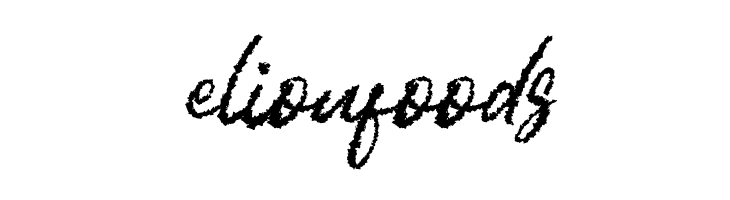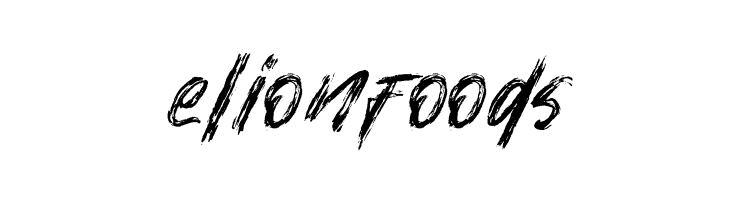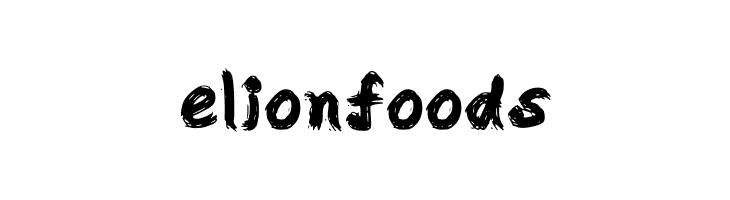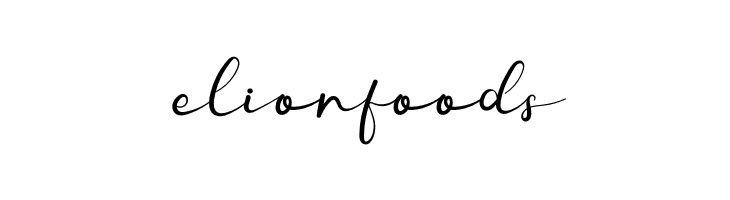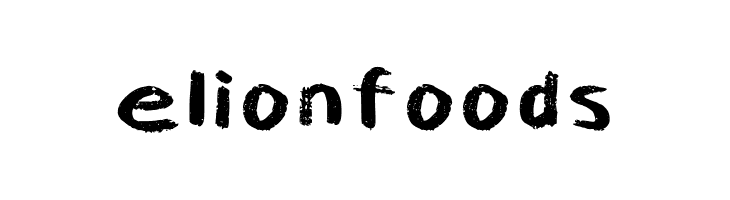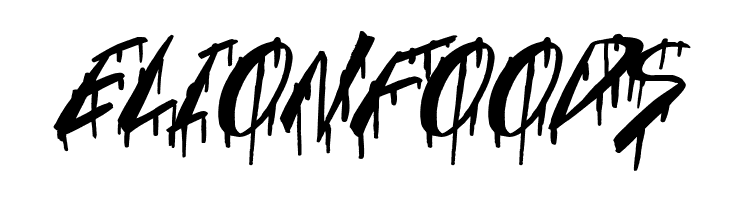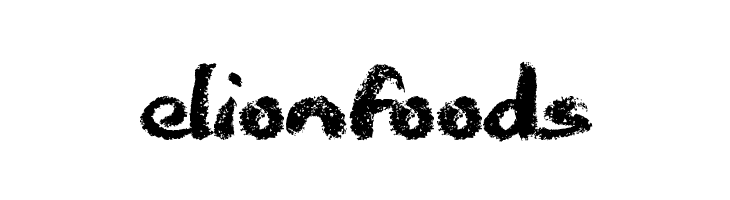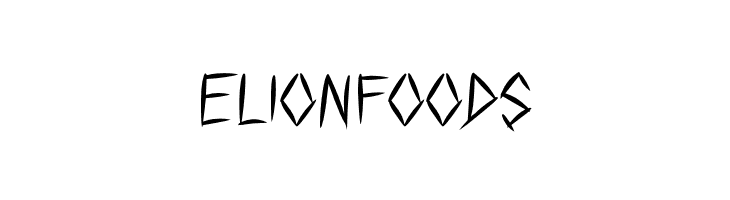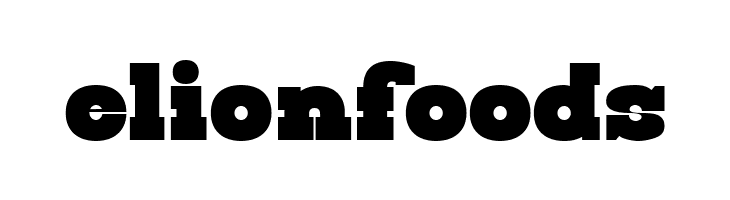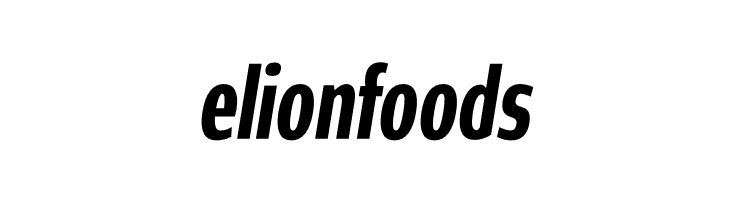
A textured, cursive font resembling chalk writing, ideal for creative and nostalgic projects.
A bold, brush-style font with dynamic, jagged strokes.
A bold, textured font with a hand-drawn, chalk-like appearance.
A playful, handwritten font with fluid, connected strokes and a whimsical charm.
A textured, hand-drawn font with a chalk-like appearance.
A bold, edgy font with sharp, jagged edges and a rebellious, grunge-like style.
A textured, chalk-like font with a playful, hand-drawn style.
A bold, edgy font with sharp, angular lines and dynamic energy.
A bold, blocky font with a strong, industrial aesthetic.
A bold and italic font with a modern, condensed style.